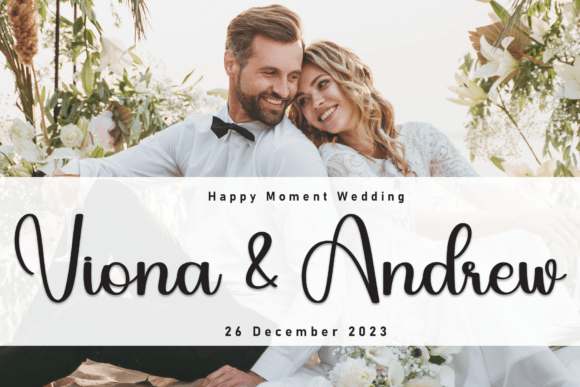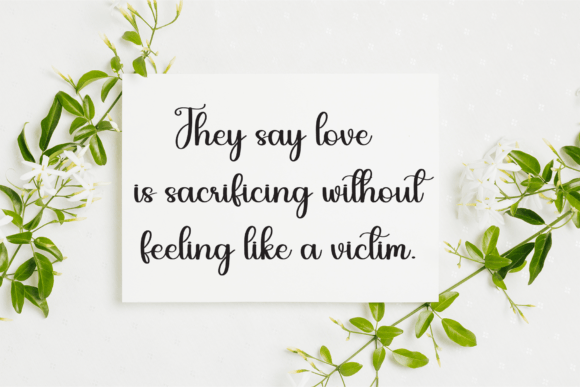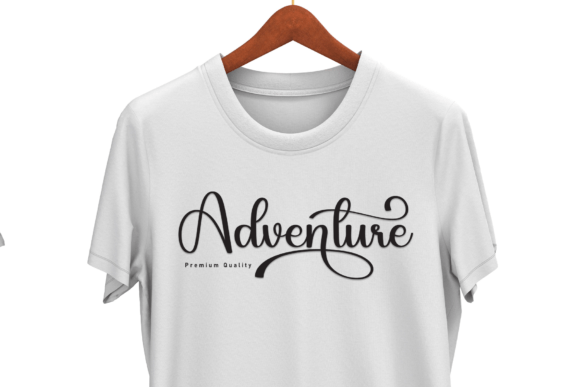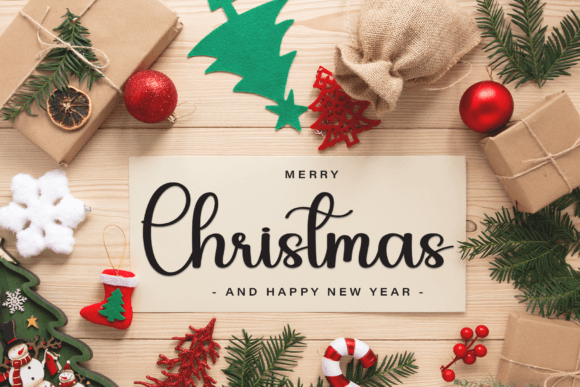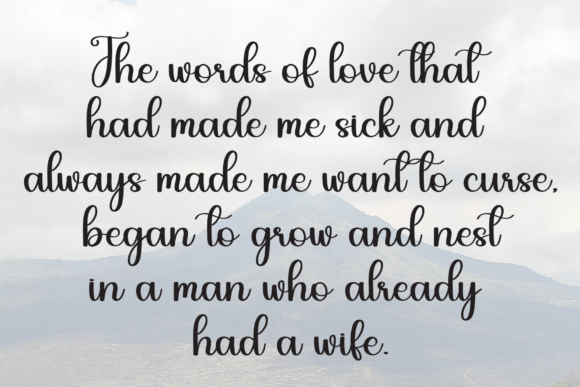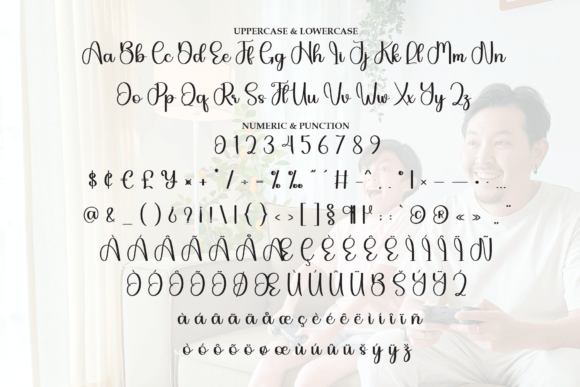
The Blissful Father Font: A Timeless Choice for Your Creative Projects
Have you ever been in the middle of a design project, and suddenly, you’re stuck on finding the perfect font? I recall a recent experience where I was working on a branding project for a luxury wedding planner, and I just couldn’t find a font that captured the elegance and sophistication I was looking for. That’s when I stumbled upon the Blissful Father font, and it instantly became my go-to choice. In this article, I’ll share my love for this beautiful font, its features, and how to make the most of it in your designs.
My Love Affair with Blissful Father
The Blissful Father font is a stunning, flowing handwritten font that exudes an elegant touch. Its incredibly distinct and timeless style makes it perfect for a wide range of projects, from wedding invitations to branding and advertising materials. Here’s what I love about it:
- ✨ Elegant and sophisticated feel
- 💫 Unique and distinctive style that stands out
- 📝 Perfect for titles, headings, and short paragraphs
A Few Quirks to Keep in Mind
While I adore the Blissful Father font, there are a few minor quirks to be aware of:
- 🤔 Limited availability of certain characters and glyphs
- ⚠️ May not be suitable for very long paragraphs or body text
The Story Behind Blissful Father
The Blissful Father font was designed with love and care by a talented type designer who wanted to create a font that would evoke feelings of joy and happiness. The designer’s inspiration came from classic handwritten fonts, with a modern twist to make it more versatile and elegant.
Here are some frequently asked questions about the Blissful Father font:
- Q: What type of projects is Blissful Father suitable for?
- A: Blissful Father is perfect for a wide range of projects, including wedding invitations, branding, advertising, and more.